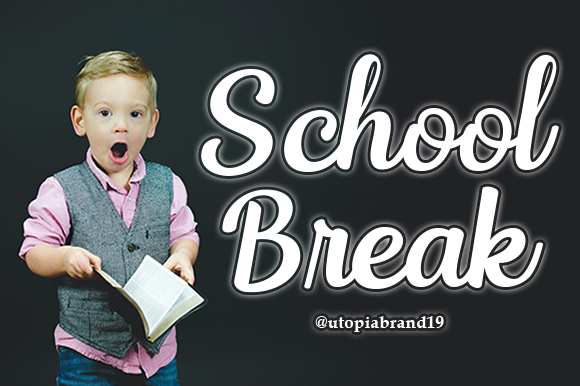
Ignite your creativity and embark on a whimsical journey with School Break Font, the enchanting script font that exudes charm and playfulness. Brilliantly crafted by utopiabrand19, this font is a masterpiece that captures the essence of childhood wonder and innocent joy.
Imagine crafting captivating wedding invitations adorned with School Break Font, each letter flowing gracefully like a melody. Picture thank-you cards that express heartfelt gratitude with a touch of whimsy. Create captivating quotes that inspire and uplift, presented in the delightful dance of School Break.
With School Break, your greeting cards will burst with cheer and warmth, spreading joy with every word. Design logos and business cards that leave a lasting impression, showcasing your unique style and creativity. Let School Break infuse your designs with a personalized touch that speaks volumes.
The possibilities are limitless, just like the imagination of a child. Unleash your inner artist and let School Break guide you on an adventure of self-expression and visual delight.